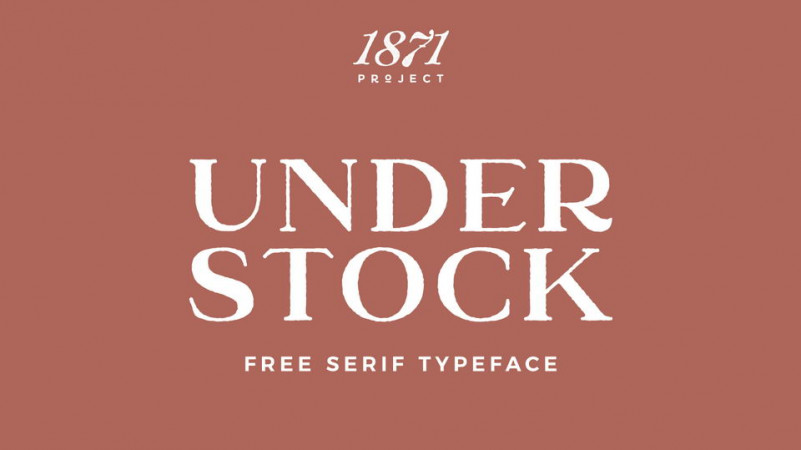
Understock Serif Font
This is a vintage label display typeface, was inspired by vintage poster typography. The letter forms have slight quirks to them, giving this bold serif display font a perfect imperfection. Introducing Understock Font. Understock Serif Font With handdrawn character and opentype feature its very helpfull to get Vintage design. Suitable and applicable to create vintage design, branding, logos, product packaging, invitation, qoutes, t-shirt, label poster etc.